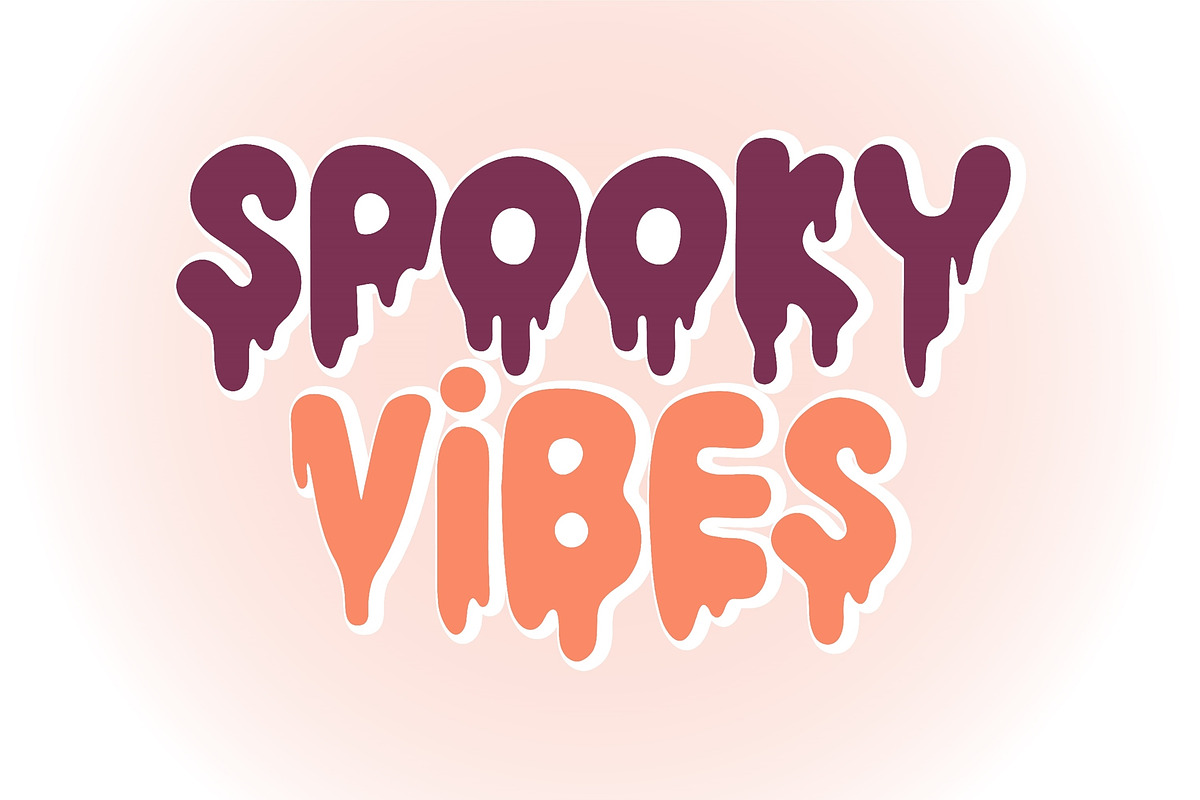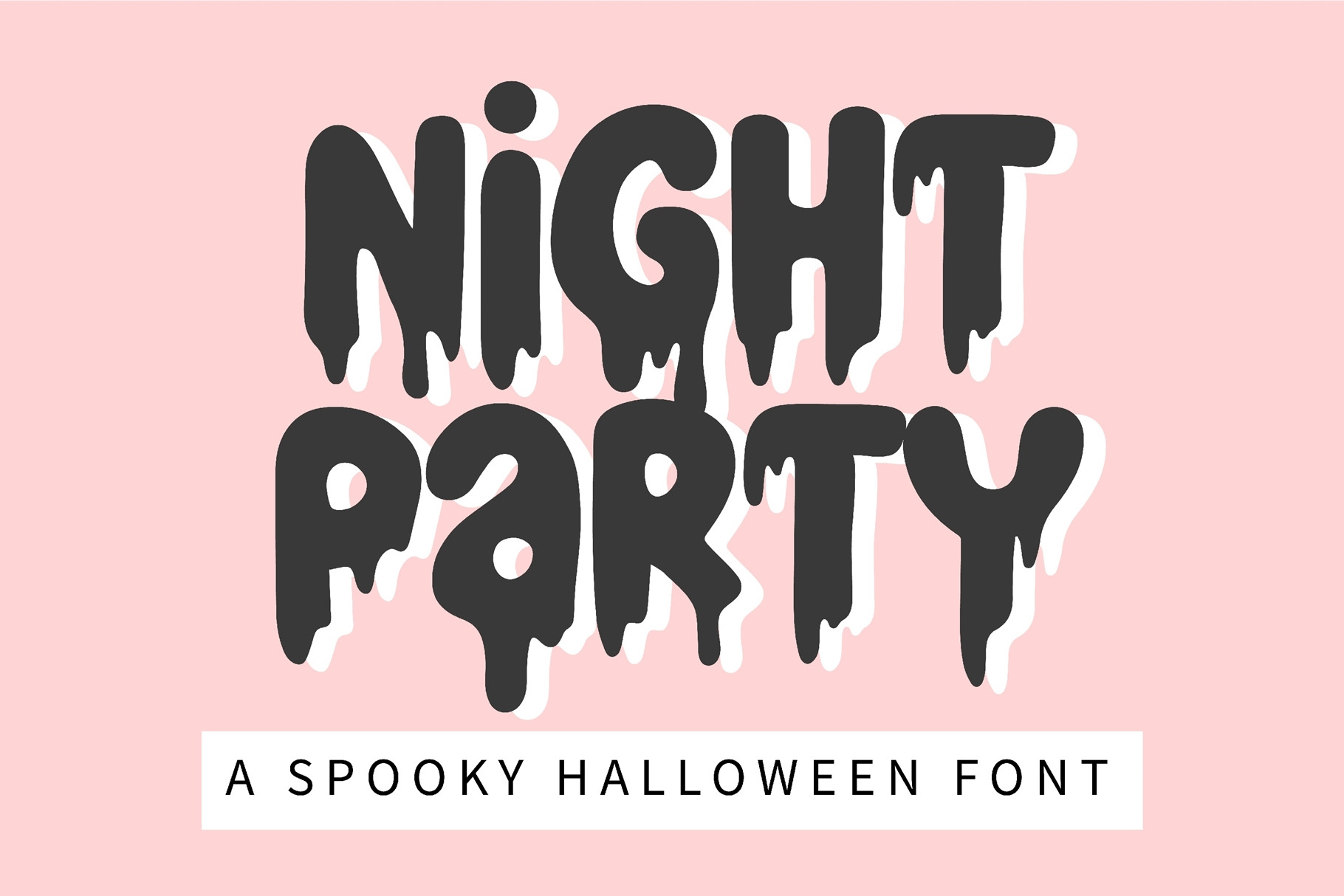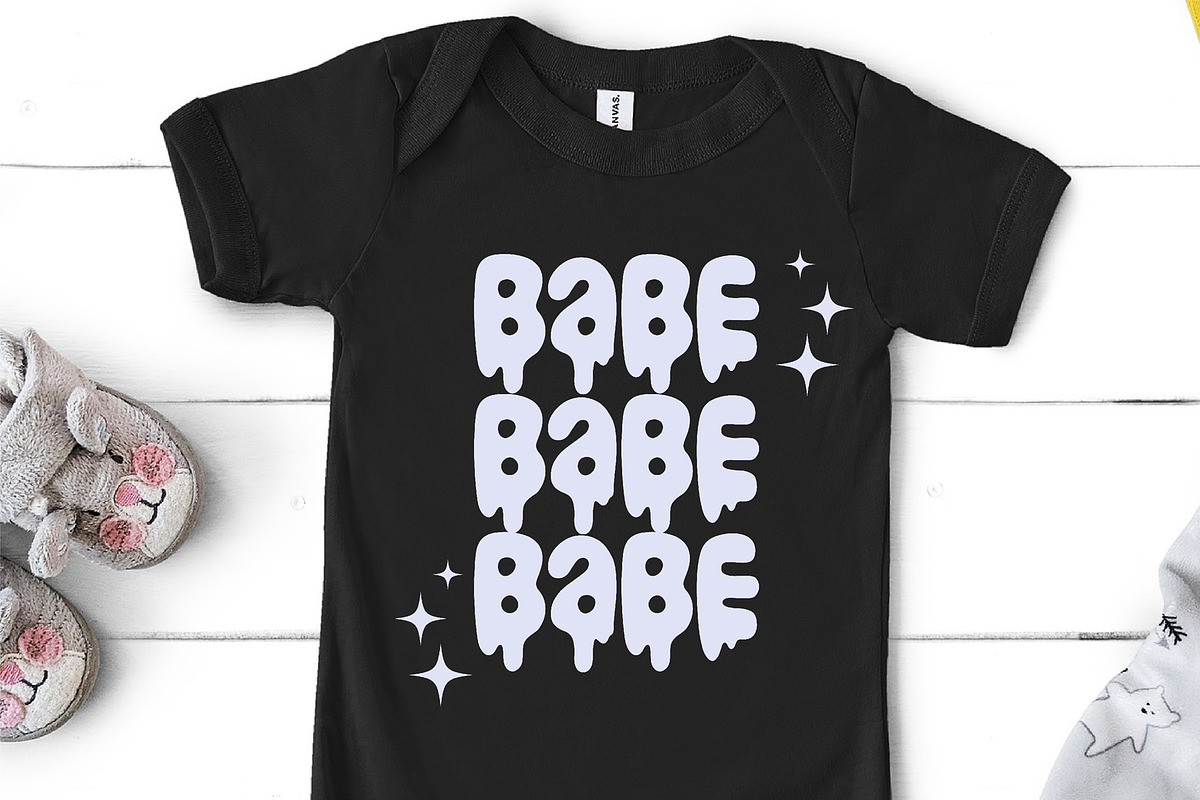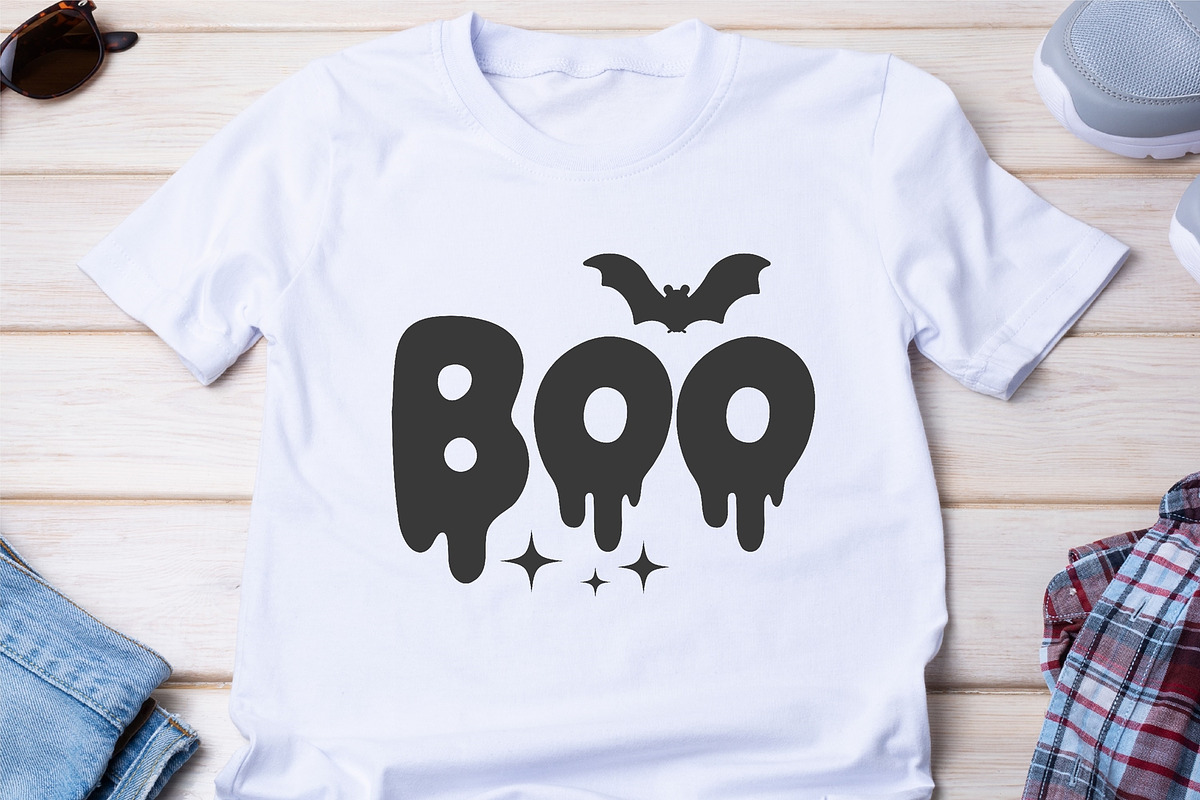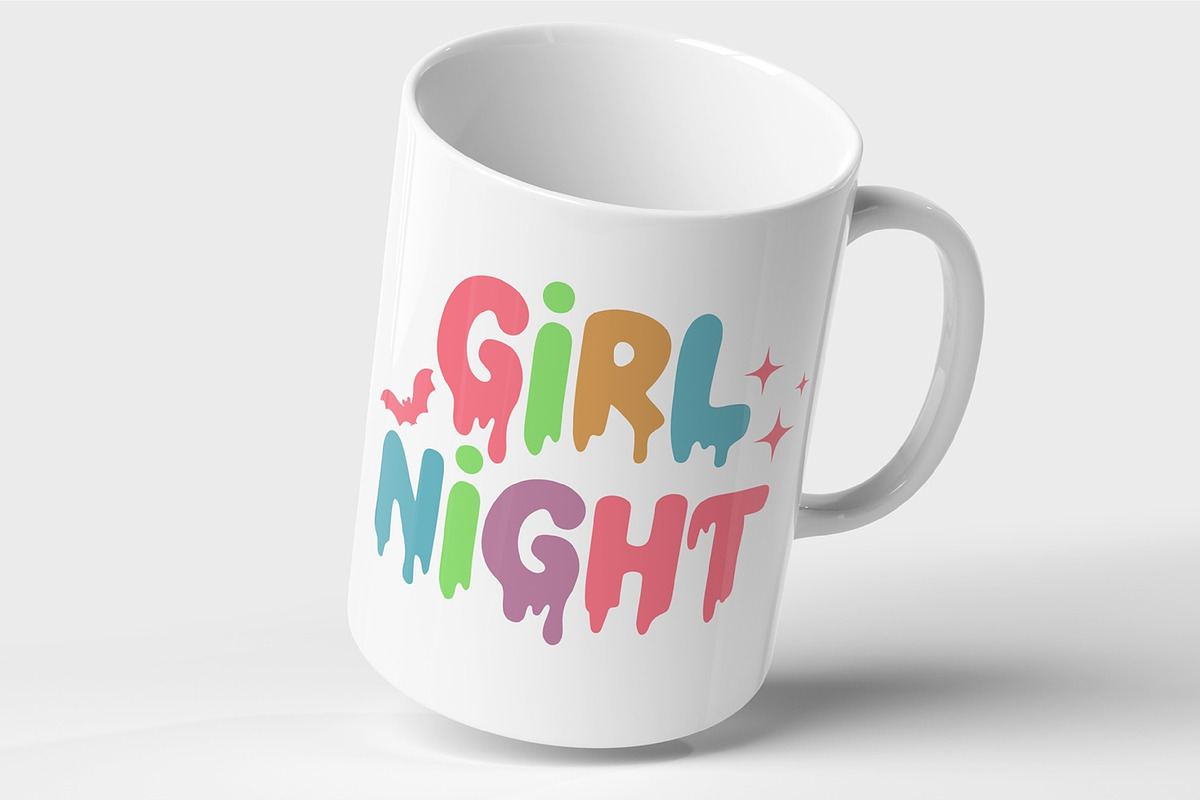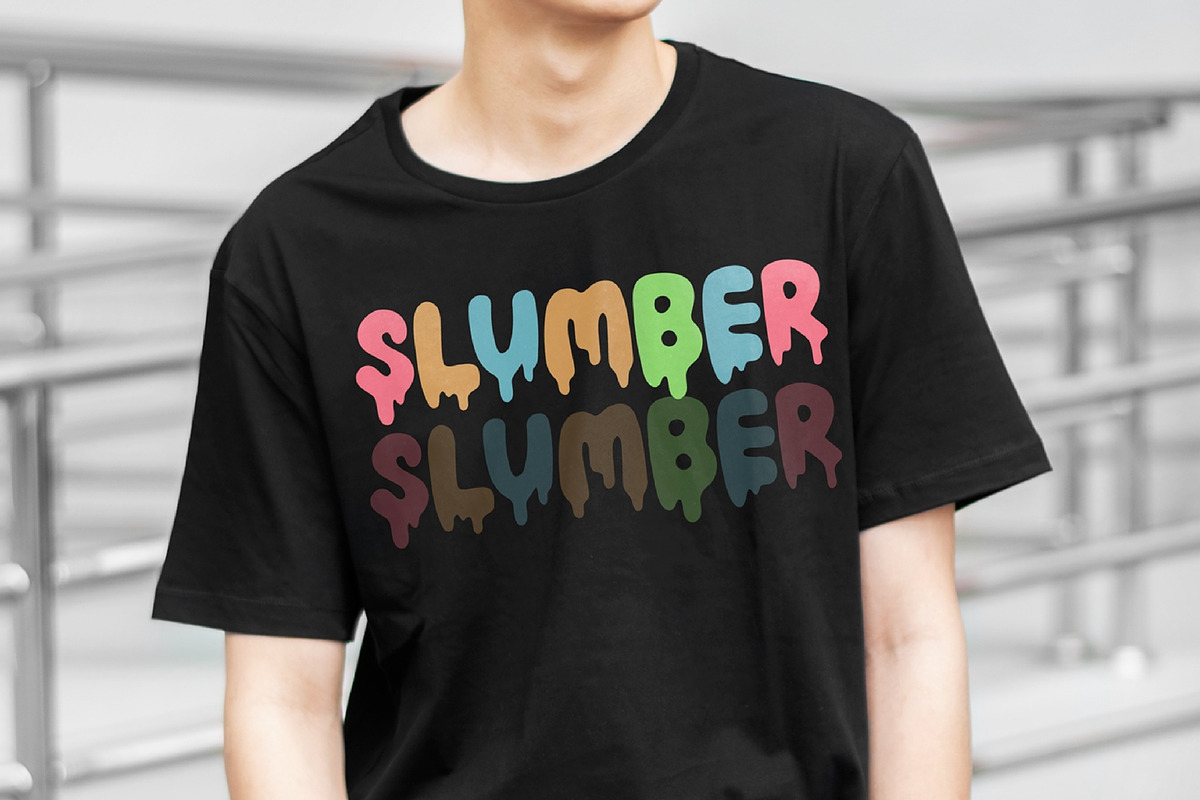
Nitght Party - A Halloween font
Night Party is a spooky and fun Halloween font and a dripping effect. It is perfect for any October project that requires a dramatic touch!